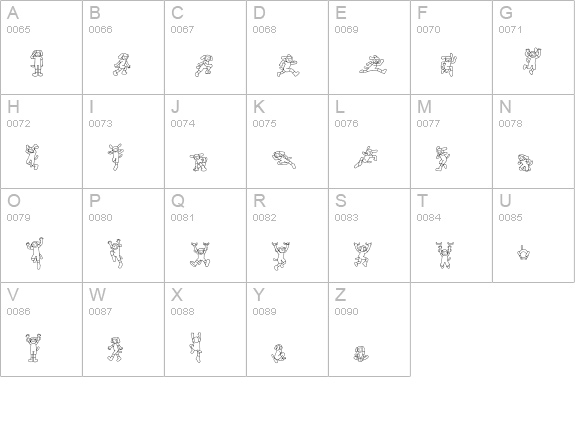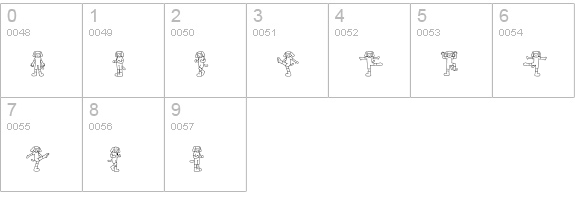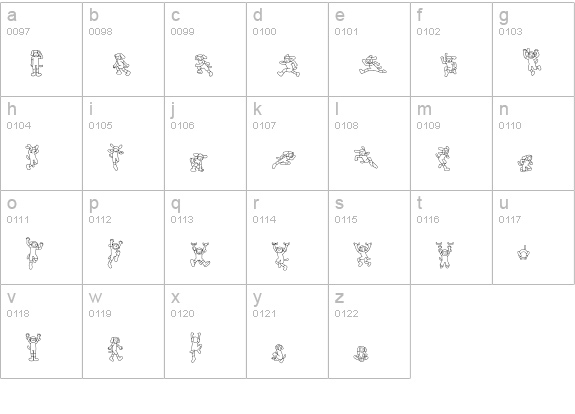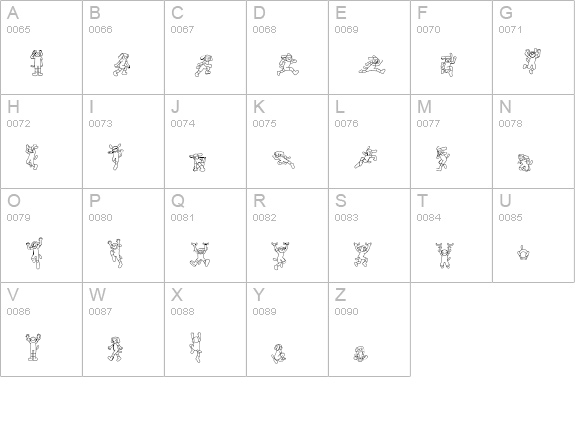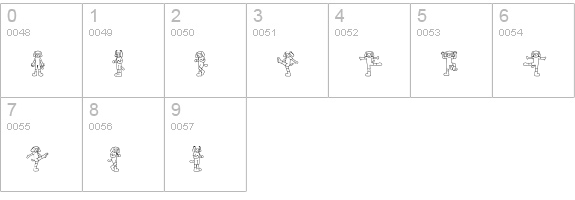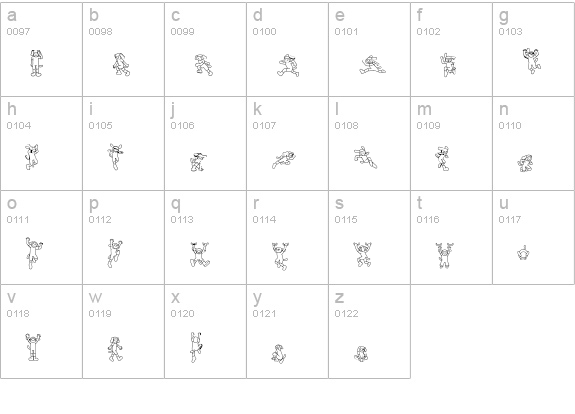
Introducing the Inu-character font, a beautifully designed typeface that exudes charm and personality. With its intricate details and playful curves, this font is perfect for adding a touch of whimsy to your creative projects. But what sets the Inu-character font apart is not just its unique design, but the fact that it is free. That's right, you can download this incredible font for absolutely no cost at FontsMarket.com. Whether you're a graphic designer, a blogger, or simply someone who loves experimenting with fonts, the Inu-character font is a must-have addition to your collection. Imagine the possibilities with this font: from crafting eye-catching logos and branding materials to designing captivating social media posts and website headers. The Inu-character font will effortlessly elevate your work and make it stand out from the crowd. With its wide range of characters, including uppercase and lowercase letters, numerals, and punctuation marks, the Inu-character font offers versatility and flexibility. Its clean lines and attention to detail ensure legibility and readability in both small and large sizes. Bring your creative visions to life with the Inu-character font. Embrace its free-spirited nature and let it inspire your imagination. Download this font today at FontsMarket.com and unlock a world of endless design possibilities.